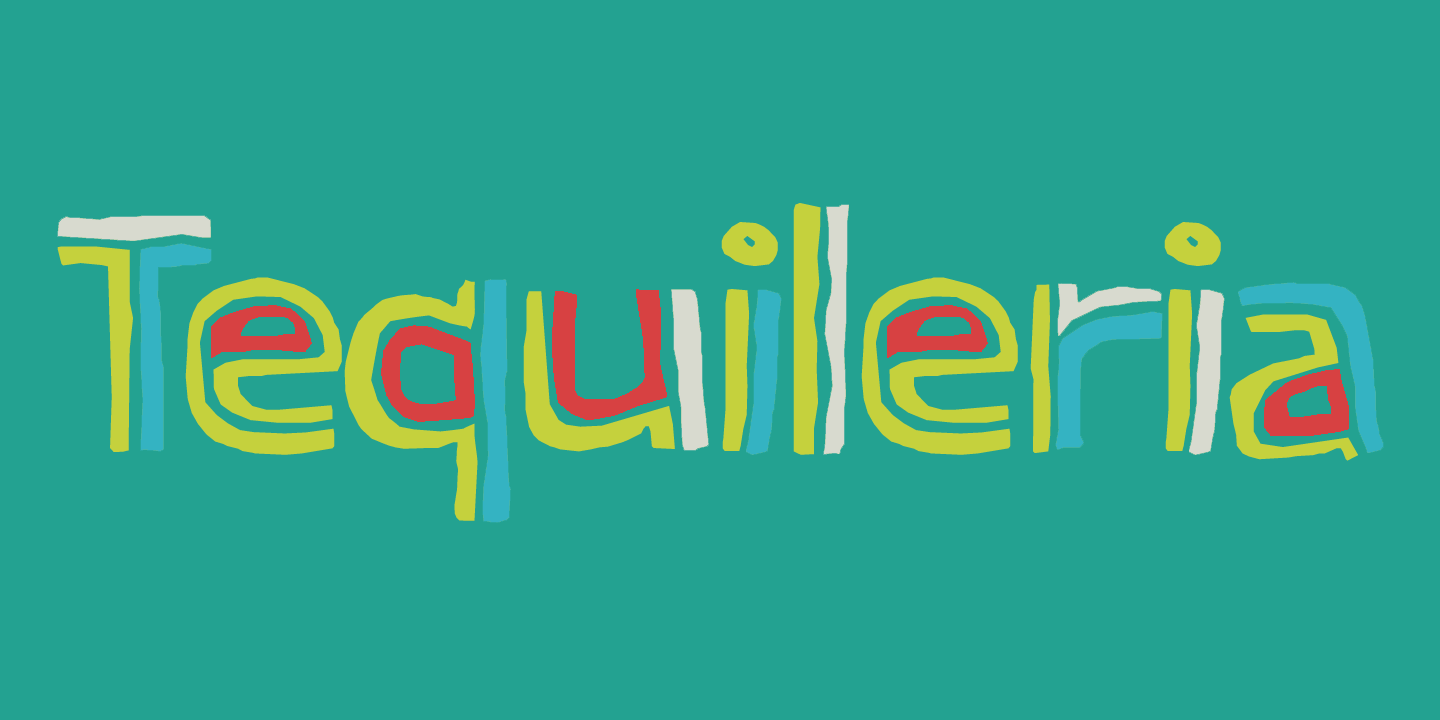
Tequileria Font Free Download is a bold, decorative typeface inspired by vintage Mexican signage and handcrafted lettering. Perfect for restaurant branding, menus, posters, product packaging, logos, and festive event promotions, this font adds a lively, rustic charm to your designs. Tequileria Font brings a playful, cultural flair that captures the spirit of celebration and tradition.
With Tequileria Font Free Download, you’ll receive a complete set of uppercase letters, numbers, and essential punctuation, offering flexibility for both print and digital applications. Whether you’re creating a tequila brand label, a themed event flyer, or promotional materials for a cantina, this font ensures readability while delivering bold, eye-catching style.
Bring vibrant, authentic character to your creative projects with Tequileria Font Free Download. Its bold, decorative style makes it a standout choice for designs that need energy, personality, and cultural warmth.